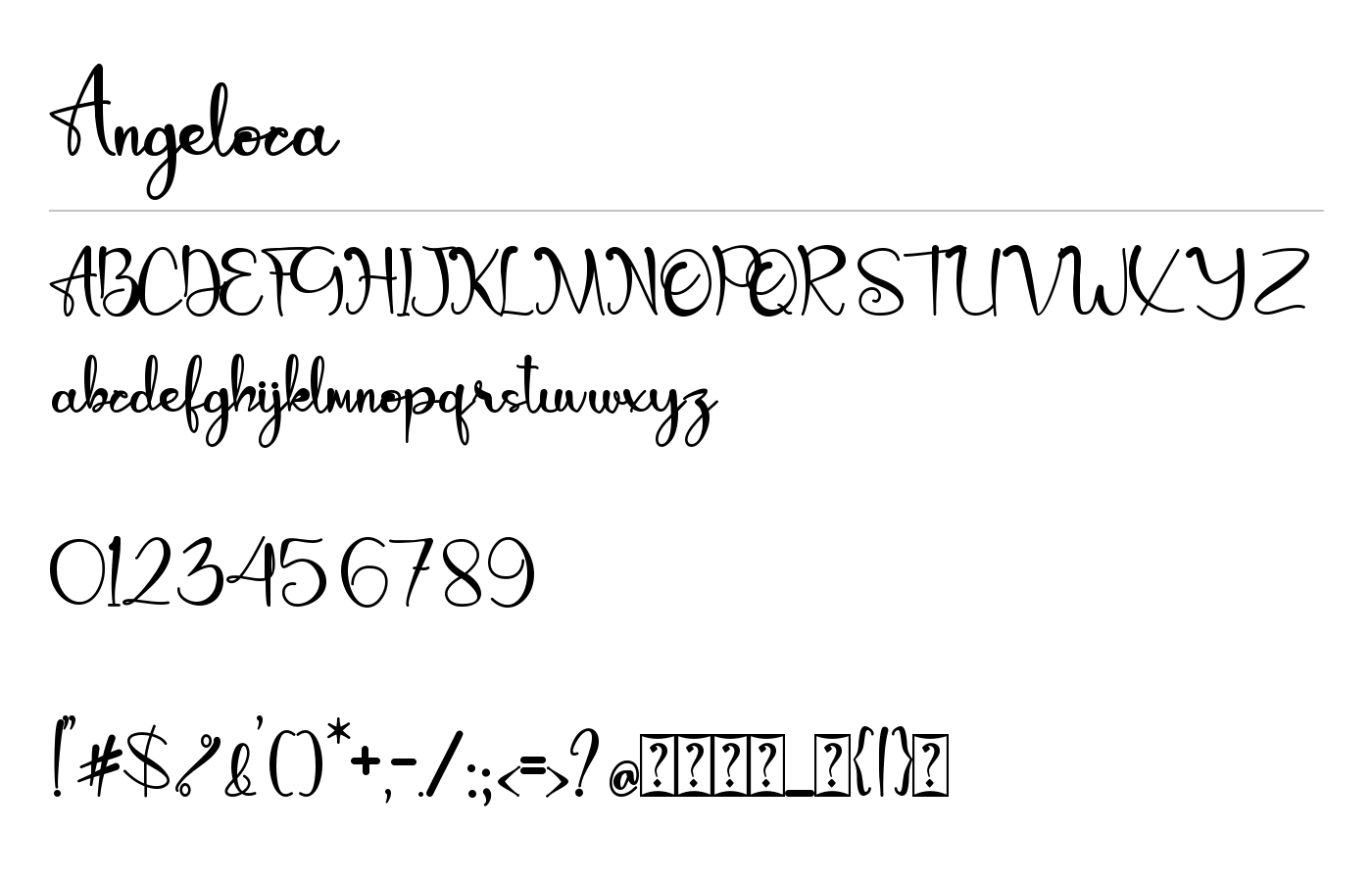
Angeloca is a playful, handwritten script font with a light, flowing style that features whimsical loops and a casual, friendly feel. Its uneven strokes and quirky letterforms make it ideal for creative projects such as invitations, branding, and social media where a personal, approachable tone is desired. This font shines best in headlines or decorative text, adding a unique charm and warmth to any design.
Angeloca Font
About Angeloca Font
| Font family | Angeloca Font |
| Designer | Vincentius Kriswandono |